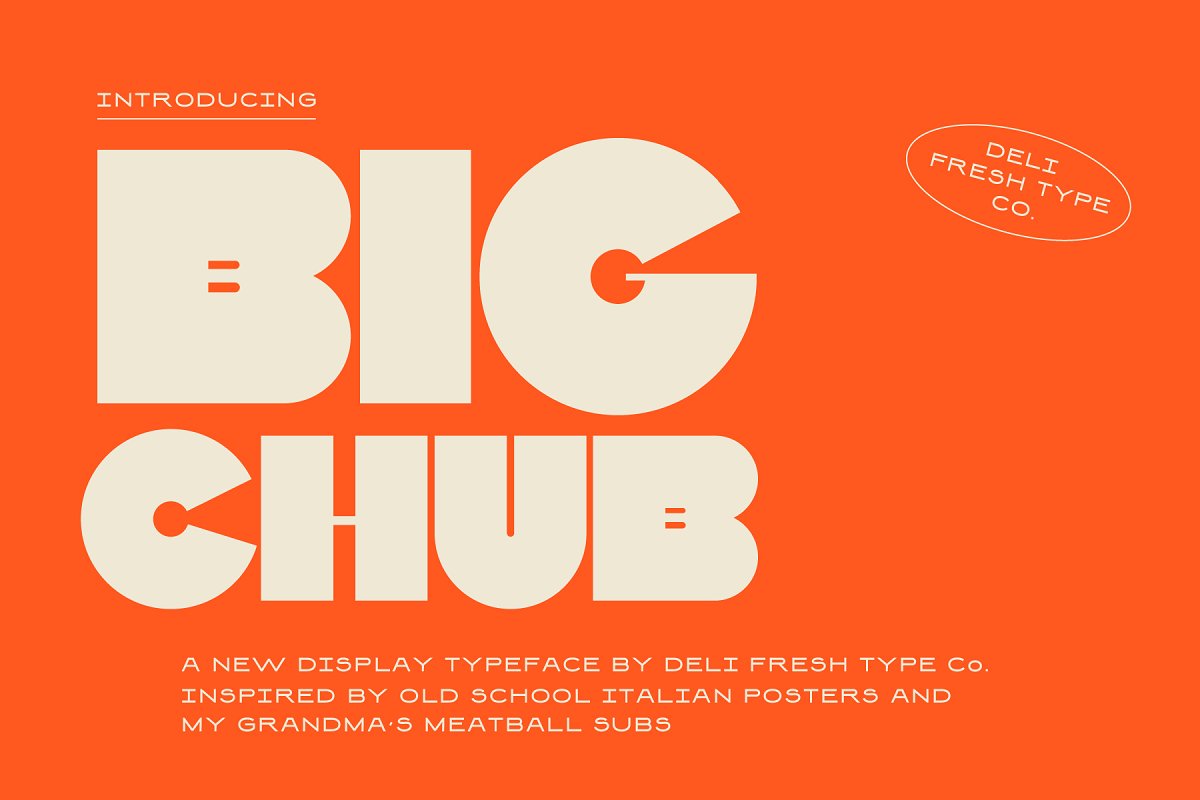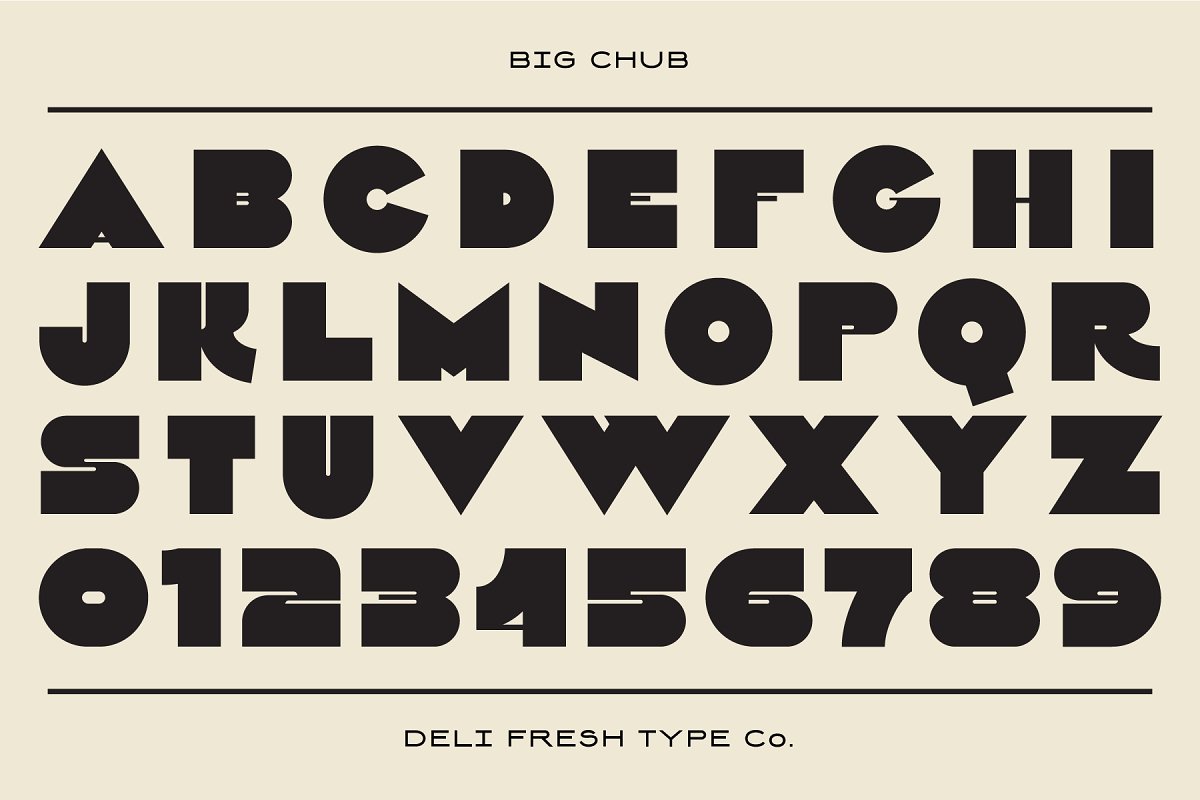
About the Big Chub: An Old School Italian Font
An extra heavy display typeface inspired by old school Italian advertising posters, This hefty font comes with capitals, numerals, and a smattering of special characters, Get it while it’s hot!